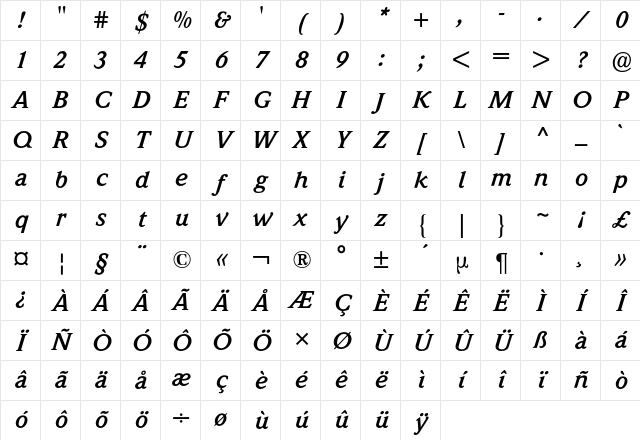
Weidemann BQ Regular
Weidemann BQ Family
Weidemann BQ Regular
Design Context for Weidemann BQ
Weidemann BQ is a composed and adaptable typeface that performs quietly and consistently across a wide range of design contexts.
Pro Tip: Use Weidemann BQ in both headline and body roles to test its range before committing to a single application.